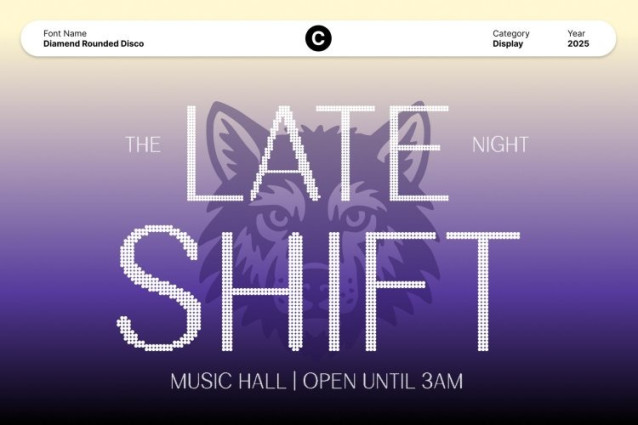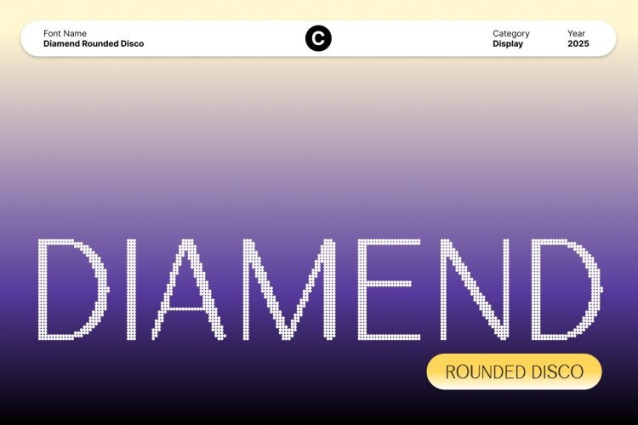
Diamend Rounded Disco Font This is a modern sans serif font crafted with slim proportions, clean lines, and smooth rounded corners. Its minimalist construction creates a refined and contemporary look, offering both elegance and approachability in every character. This balance of style and simplicity makes it a versatile choice for creative professionals.
Soft Curves with a Friendly, Stylish Tone
The rounded terminals add a warm and friendly personality, allowing the font to feel modern yet welcoming. Its geometric foundation enhances clarity and visual harmony, making it suitable for a wide range of design contexts from polished lifestyle branding to editorial layouts requiring a refined touch.
Disco Effect for Glamour and Dynamic Energy
What sets this font apart is its dazzling disco effect. The sparkling texture introduces movement, glamour, and lively energy, giving each letter a shimmering presence. This dynamic layer transforms the font into an eye-catching statement piece capable of elevating any visual composition.
Perfect for Branding, Posters, and Creative Projects
This font excels in applications where style and impact must work together. Its sleek shapes, rounded curves, and sparkling finish make it ideal for branding identities, poster titles, editorial spreads, digital designs, and promotional materials. Whether you’re crafting a modern logo or a stylish campaign, this font ensures a captivating, contemporary, and memorable look.